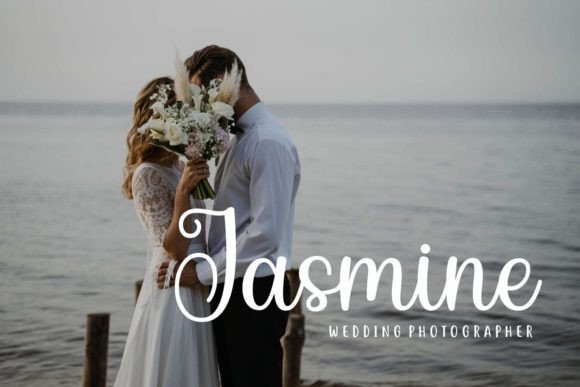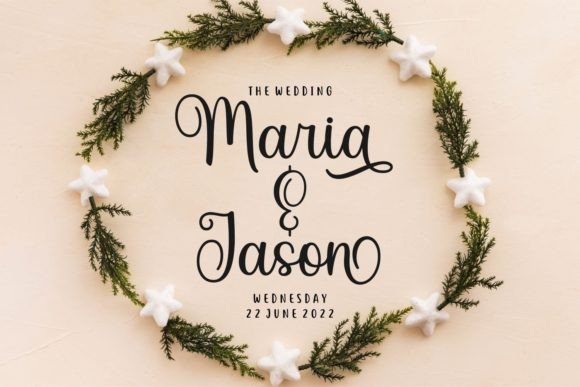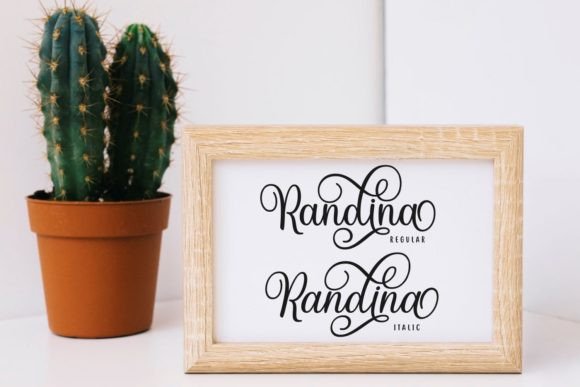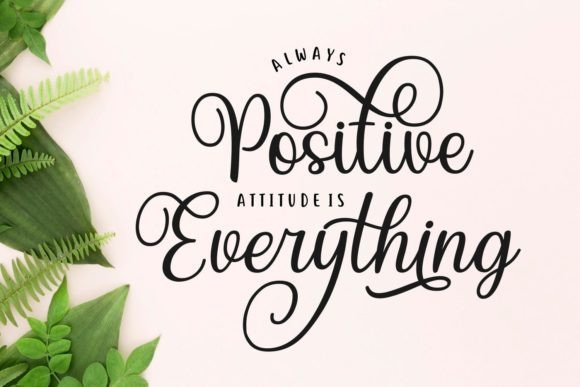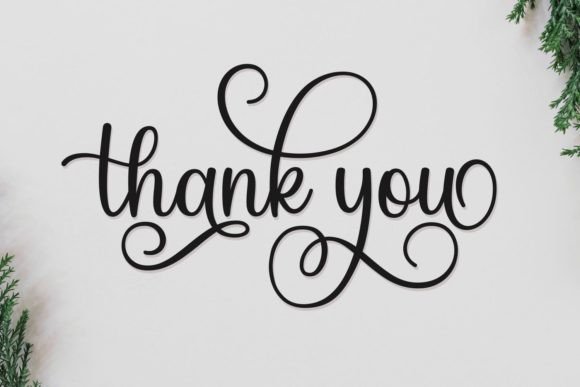
Introduction to Randina Font
With its modern and stylish script design, the Randina Font adds a touch of elegance to any project. Its dramatic swashes and beautiful rhythm make it a valuable resource for designers looking to create high-quality designs with a personal touch. Whether you’re working on a logo, brochure, or social media graphic, the Randina Font is sure to impress.
Key Features of Randina Font
- High-quality font design with unique and creative characters, ideal for various creative projects.
- Includes a range of characters, including uppercase and lowercase letters, numbers, and special characters.
One of the standout features of the Randina Font is its versatility. It comes with a wide range of styles and weights, making it perfect for a variety of design projects.
- High quality and attention to detail
- Wide range of styles and weights
- ⚠️ Limited character set